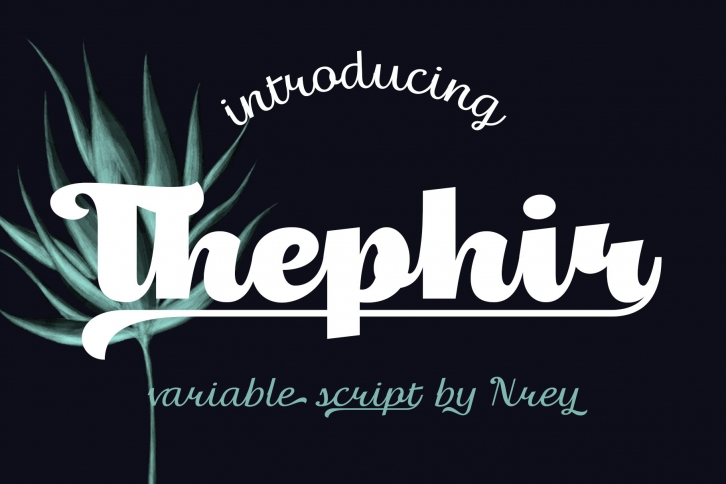
Introducing a variable script - Thephir.
Family includes 10 styles + variable font with 2 axis.
You can use it as a logo, badge, insignia, packaging, headline, poster, apparel, greeting card, and wedding invitation.
It have supporting for many european languages and perfect cyrillic!